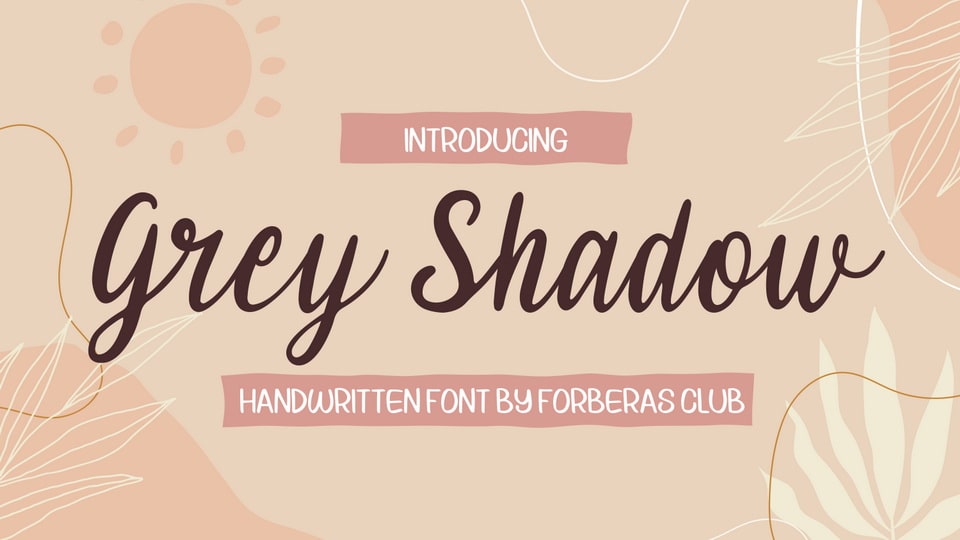
Download Grey Shadow font, a simple and balanced handwritten typeface. It maintains its classy calligraphic influences while feeling contemporary and fresh.